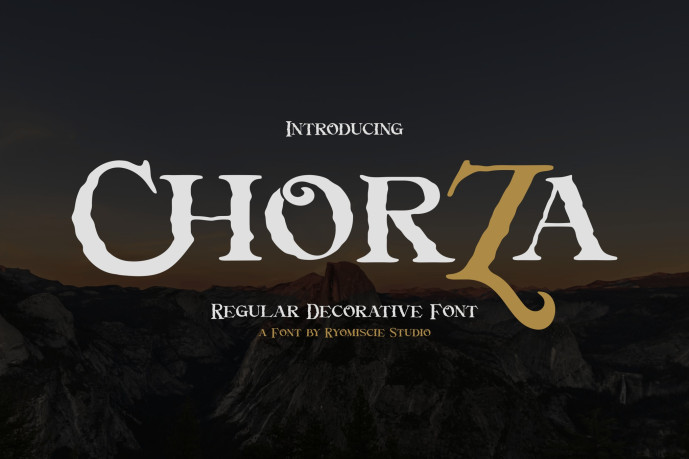
Chorza – Decorative Font
Designer: rhyomiscy
Chorza – Decorative Font is a bold and authentic display font. It’s suitable for all branding projects, such as logos, esports, and more. It looks exceptional in a wide range of contexts.